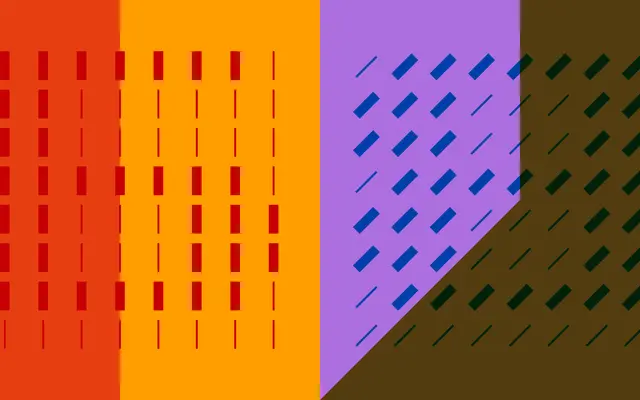
JL Ticker OTF
Jung-Lee Type Foundry · Karel Martens and Jungmyung Lee
Four OTF cuts of a clock-inspired modular typeface by Karel Martens and Jungmyung Lee, each named after a clock position and designed for layering, overprinting and typographic experimentation.
Each of the four cuts — Four, Six, Eight and Nine — corresponds to a clock position, producing distinct width and stroke variations through manual expansion, compression and selective removal of external bars. The cuts are designed to be combined, layered and overprinted rather than used as conventional text typefaces, with colour experimentation central to the concept. Described by the foundry as a digital toy rather than a functionally complete type system, the work sits closer to typographic apparatus than type family.
A modular, experimental typeface built on clock-position logic with shape-shifting cuts; firmly display in nature, intended for layering and typographic play rather than continuous text.